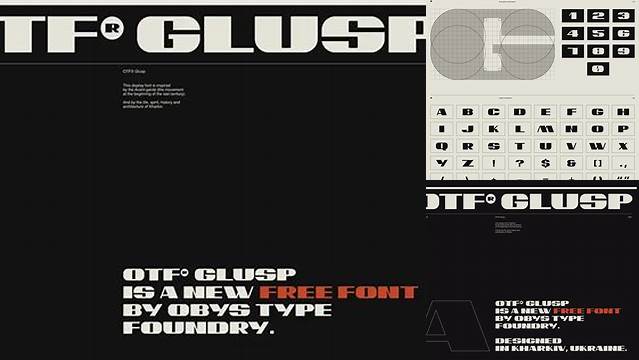
OTF Glusp Font: Free Download Guide For Designers
Introduction to Glusp Font
Glusp font is a typeface that has garnered considerable attention in the design community due to its unique and versatile aesthetic. If you're on the hunt for a font that can add a touch of modernity and elegance to your projects, Glusp might just be the perfect fit. This comprehensive guide will walk you through everything you need to know about Glusp font, including its characteristics, ideal use cases, and, most importantly, how to download it for free. We'll dive deep into the specifics, ensuring you have all the information you need to make an informed decision about incorporating this typeface into your design toolkit. Whether you're a seasoned designer or just starting out, understanding the nuances of font selection is crucial, and Glusp offers a blend of style and functionality that makes it a standout choice. From its sleek lines to its distinct letterforms, Glusp is designed to make an impact. So, let’s explore what makes Glusp font so special and how you can get your hands on it without spending a dime. This journey into the world of typography will not only equip you with a new font but also enhance your understanding of design elements that can elevate your creative projects.
What Makes Glusp Font Unique?
When you first encounter Glusp font, its distinctive characteristics immediately set it apart from more conventional typefaces. One of the key elements that makes Glusp unique is its contemporary design, which blends clean lines with subtle curves to create a balanced and harmonious appearance. The letterforms are carefully crafted to ensure readability while maintaining a sense of style and sophistication. This makes Glusp a versatile option for a wide range of design applications, from branding and logos to editorial layouts and web design. The font's personality shines through in its attention to detail, such as the slight variations in stroke weight and the unique shapes of certain characters. These details add depth and character to the font, making it more than just a functional element; it becomes a visual asset that can enhance the overall aesthetic of your design. Furthermore, Glusp font often includes a variety of weights and styles, providing designers with the flexibility to use it in different contexts. Whether you need a bold, attention-grabbing headline or a delicate, legible body text, Glusp can adapt to your needs. Its adaptability is one of its strongest selling points, allowing you to maintain a consistent visual identity across various media. In essence, the uniqueness of Glusp font lies in its ability to combine modernity with timeless elegance, making it a valuable addition to any designer's toolkit. Guys, trust me, you'll love the way this font transforms your projects!
Ideal Use Cases for Glusp Font
Now that we've explored the unique qualities of Glusp font, let’s consider the ideal scenarios for its use. Glusp's versatility makes it suitable for a wide array of projects, but certain applications truly allow its strengths to shine. For branding, Glusp can be an excellent choice due to its modern and sophisticated appearance. It works particularly well for logos and brand identities that aim to convey a sense of innovation and elegance. Think tech startups, creative agencies, or high-end retail brands – these are the types of businesses that can benefit from Glusp's refined aesthetic. In the realm of web design, Glusp offers a clean and legible option for both headings and body text. Its contemporary style can help create a visually appealing website that feels both modern and professional. Whether you're designing a minimalist blog or a complex e-commerce platform, Glusp can contribute to a cohesive and user-friendly design. Editorial design is another area where Glusp excels. Its balanced letterforms and multiple weights make it easy to create visually engaging layouts for magazines, brochures, and other print materials. The font's readability ensures that your message is conveyed clearly, while its stylish appearance adds a touch of sophistication. Furthermore, Glusp can be used effectively in marketing materials, such as posters, flyers, and social media graphics. Its ability to capture attention without sacrificing clarity makes it a valuable asset for any marketing campaign. In summary, Glusp font is a versatile typeface that can enhance a wide range of design projects. From branding to web design and editorial layouts, its modern aesthetic and excellent readability make it a top choice for designers seeking a typeface that is both stylish and functional. So, if you're looking to elevate your designs, consider giving Glusp a try!